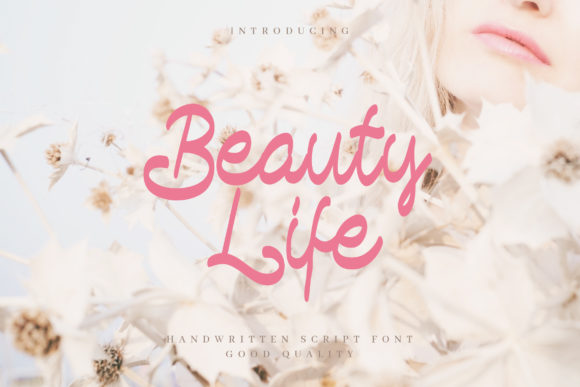
Venture into an enchanting realm where your words dance with grace and charm! Beauty Life, a splendid script font family, beckons you to ignite your creativity with its alluring allure.
Indulge in the whimsical curves and elegant swashes that define each character. Its delicate touch adds a captivating charm to any design, inviting you to express your innermost sentiments with flair and finesse.
Whether you seek to craft heartfelt invitations, design captivating branding, or simply add a touch of magic to your personal projects, Beauty Life empowers you to embrace the boundless possibilities of script writing.
Each stroke is a testament to the beauty and joy of written expression, inviting you to weave words that resonate deeply and leave a lasting impression.
Let your imagination soar as you explore the endless ways to utilize Beauty Life. Its versatility knows no bounds, allowing you to create stunning logos, eye-catching headlines, enchanting book covers, and more.
Experience the transformative power of Beauty Life today and let your words blossom into a masterpiece of artistry and emotion!